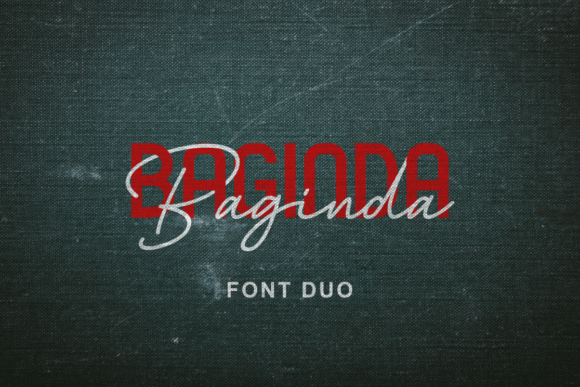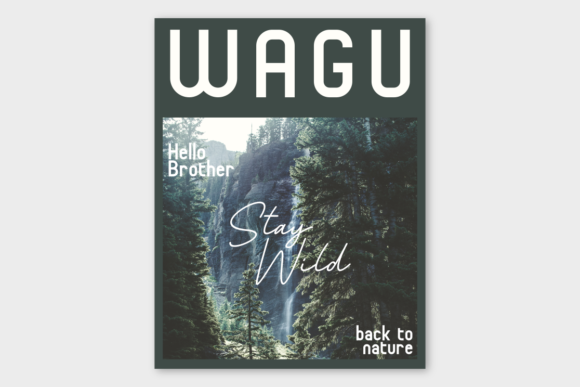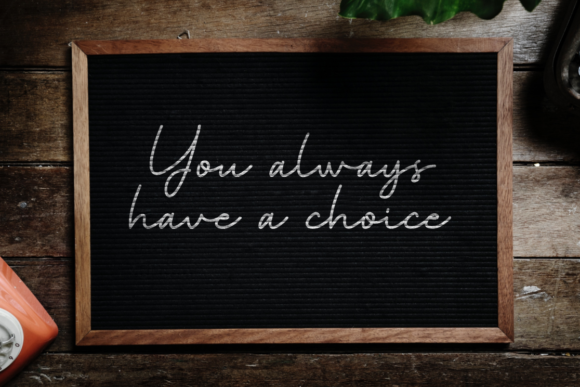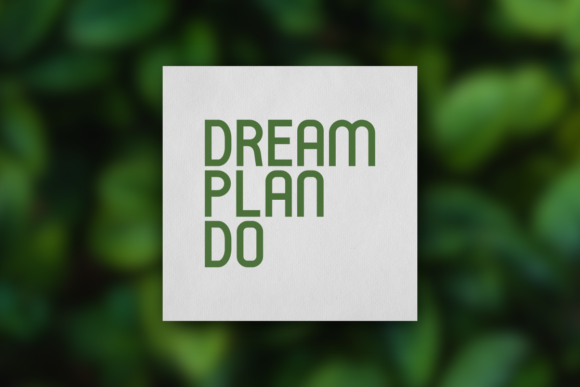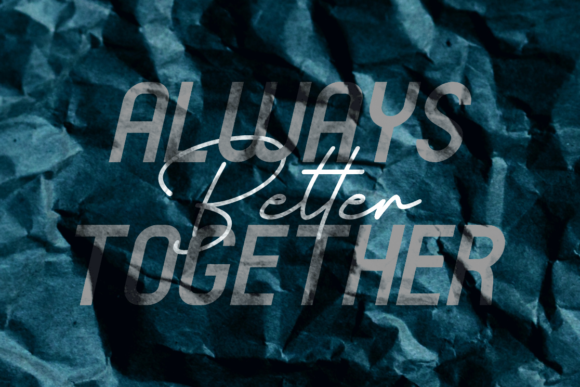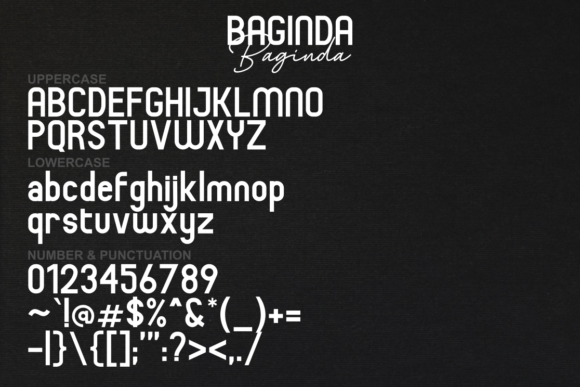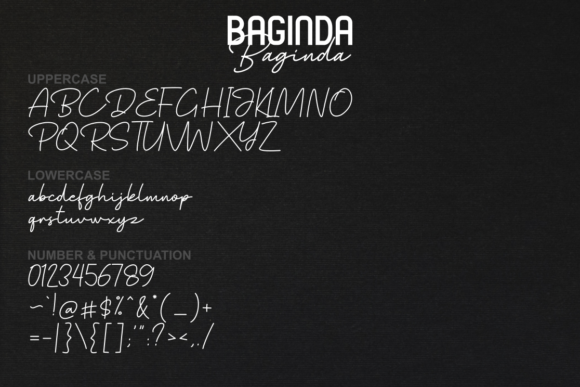
Baginda Duo Font
About Baginda Duo Font
The Baginda Duo combines a san serif and a script font. Together, they create a uniquely modern style, that effortlessly elevates any design project! Every font comes with a regular and an oblique style.